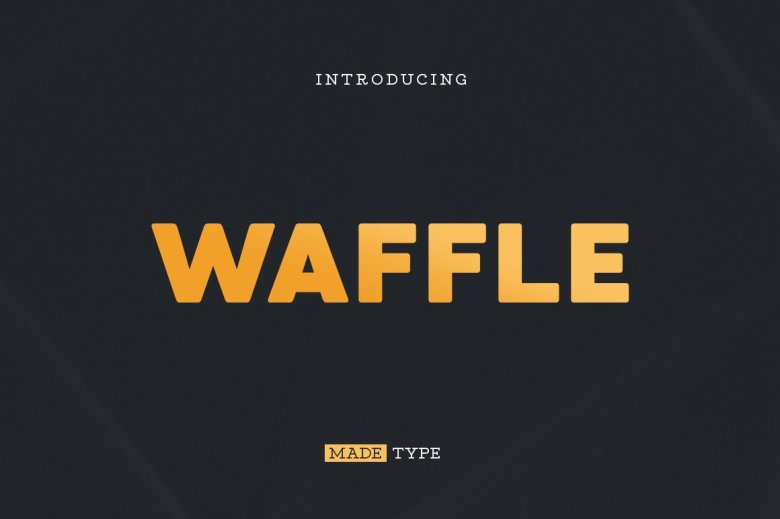
MADE Waffle Soft Font
MADE Waffle – ideal for creating logos, headings. Applicable in the design of restaurants and cafes. MADE Waffle are two fonts created for combinations of your ideas.
MADE Waffle Soft Font